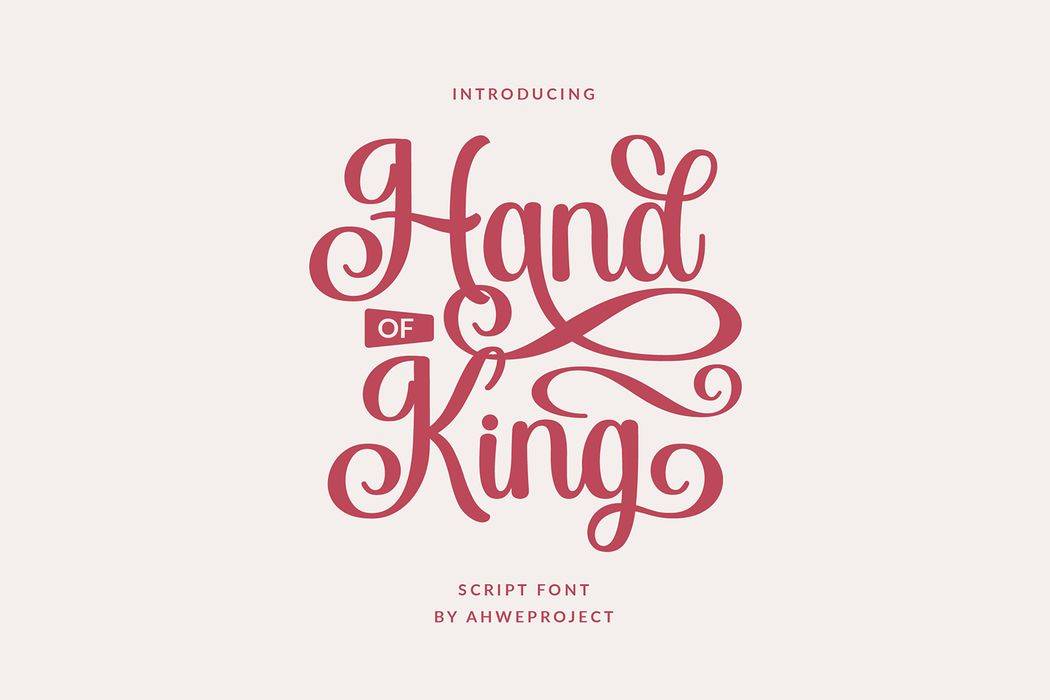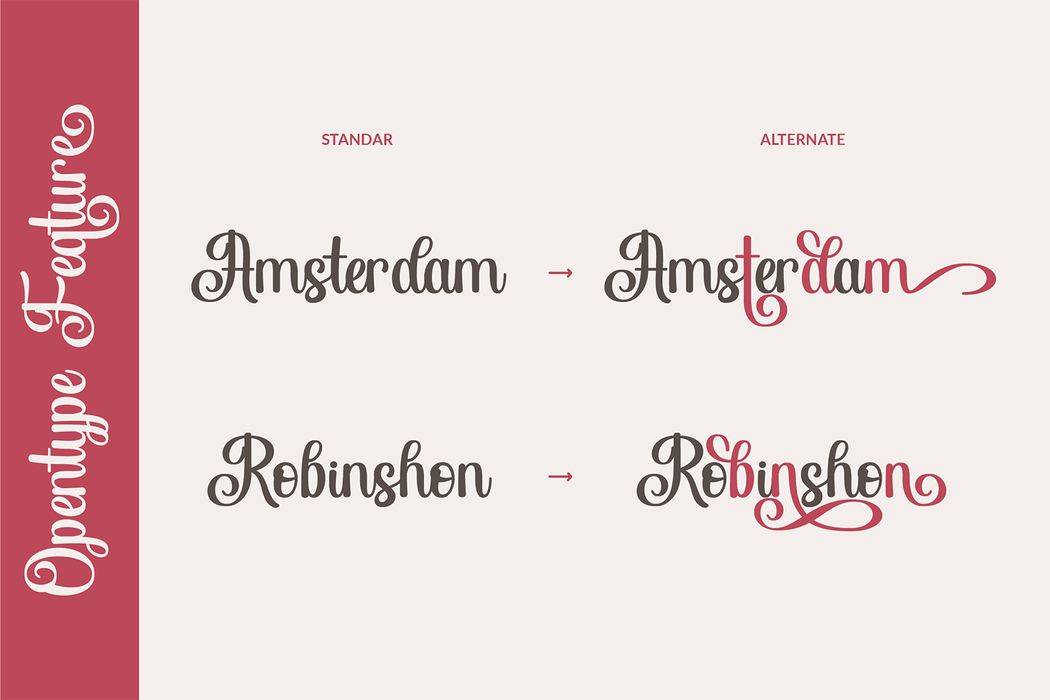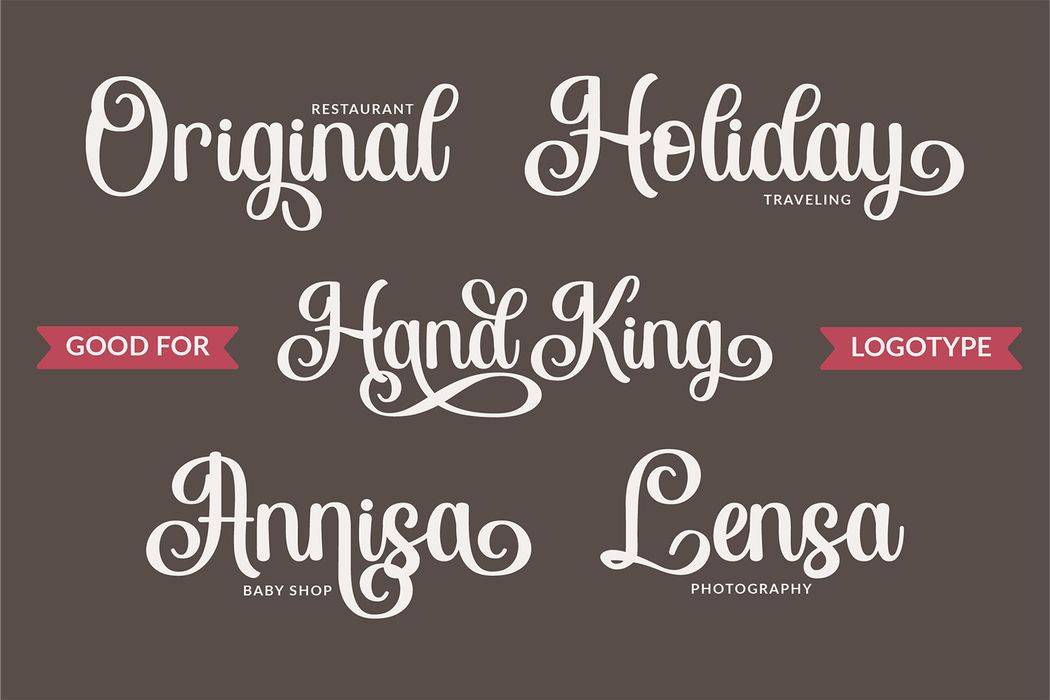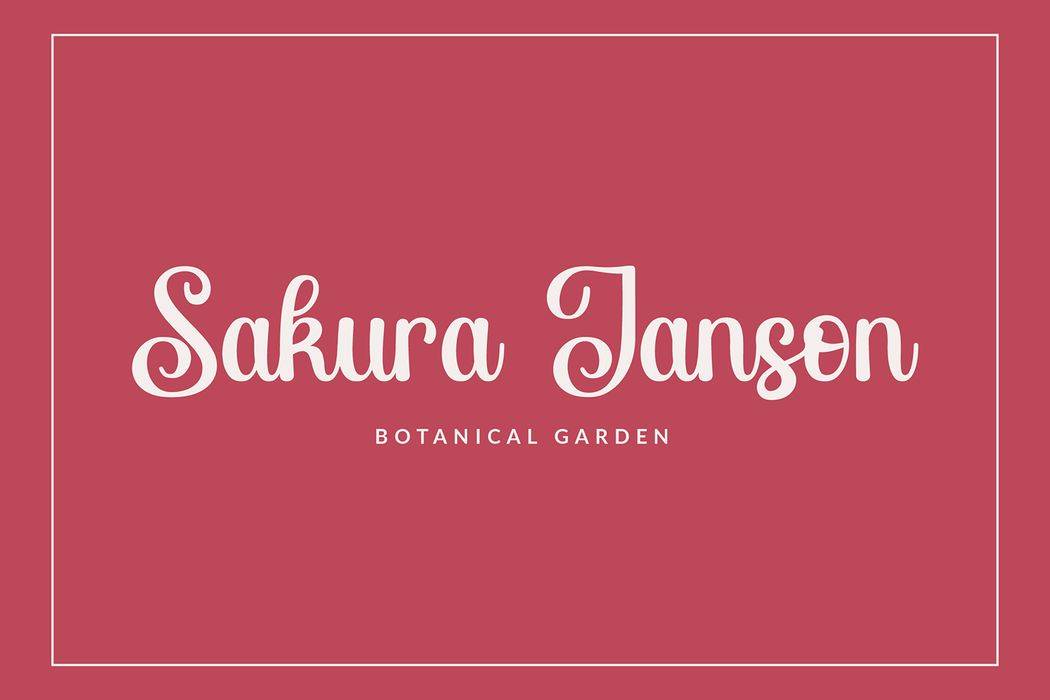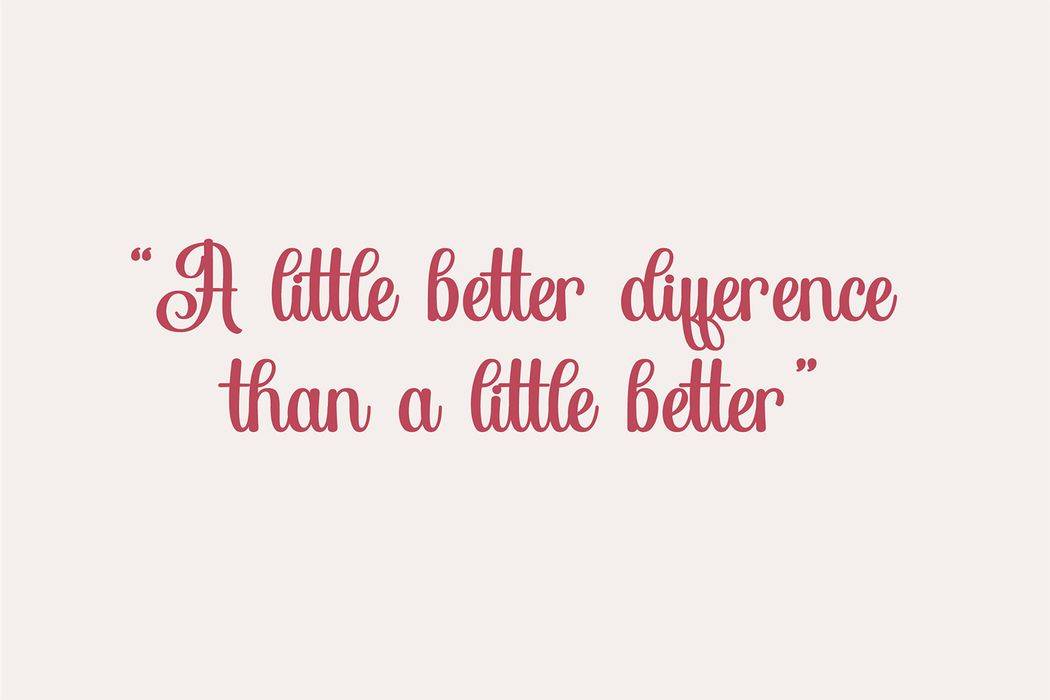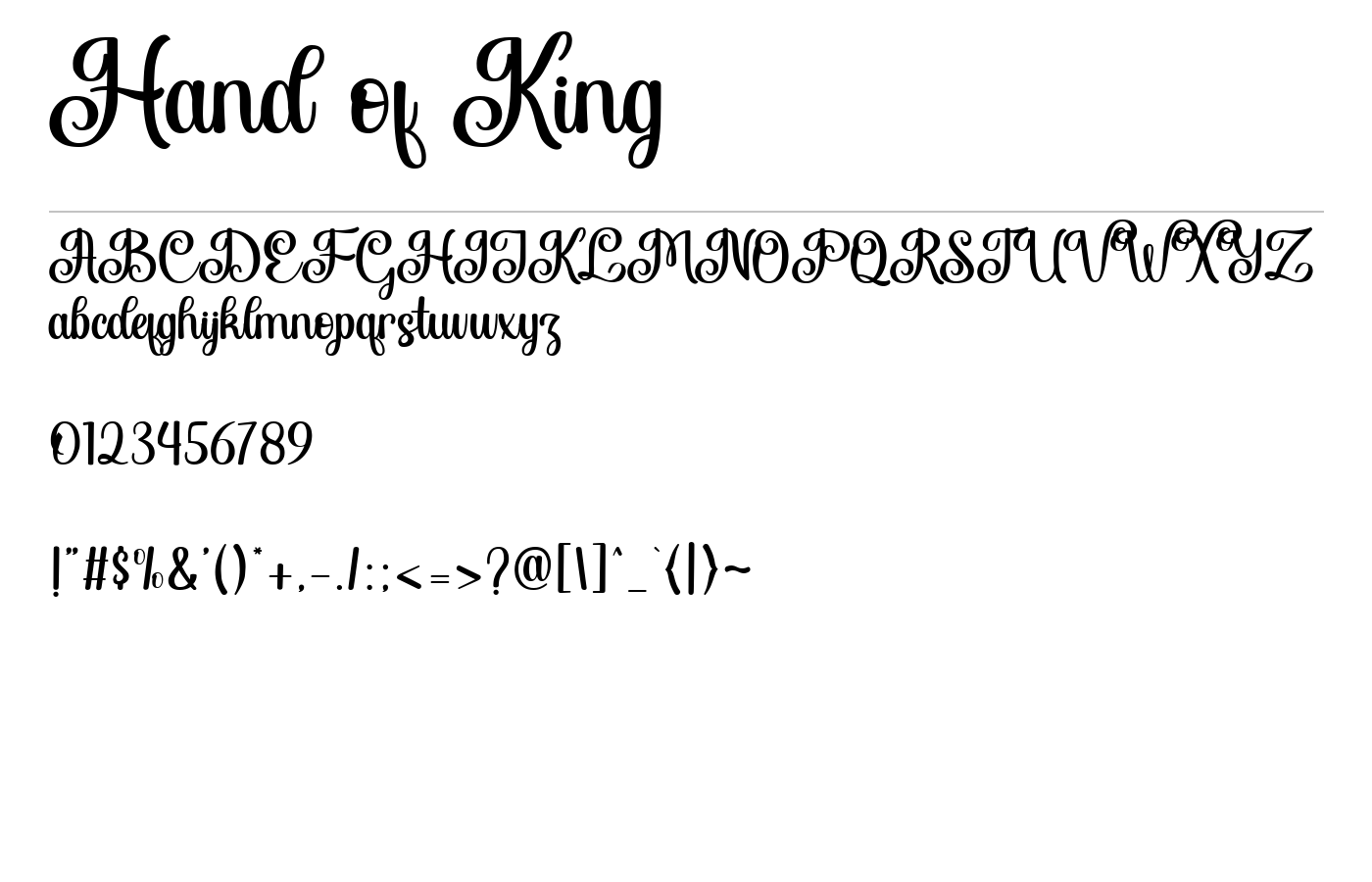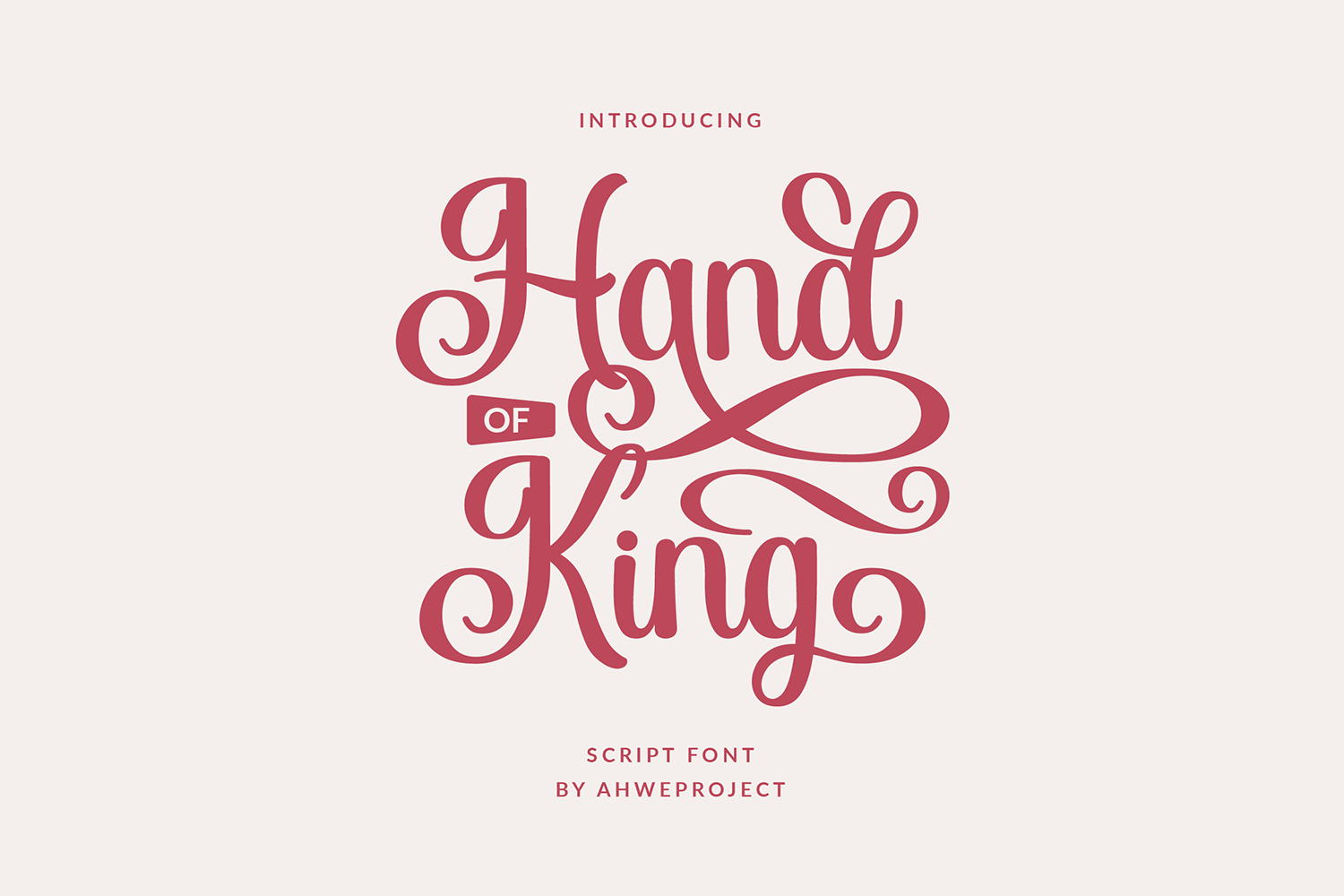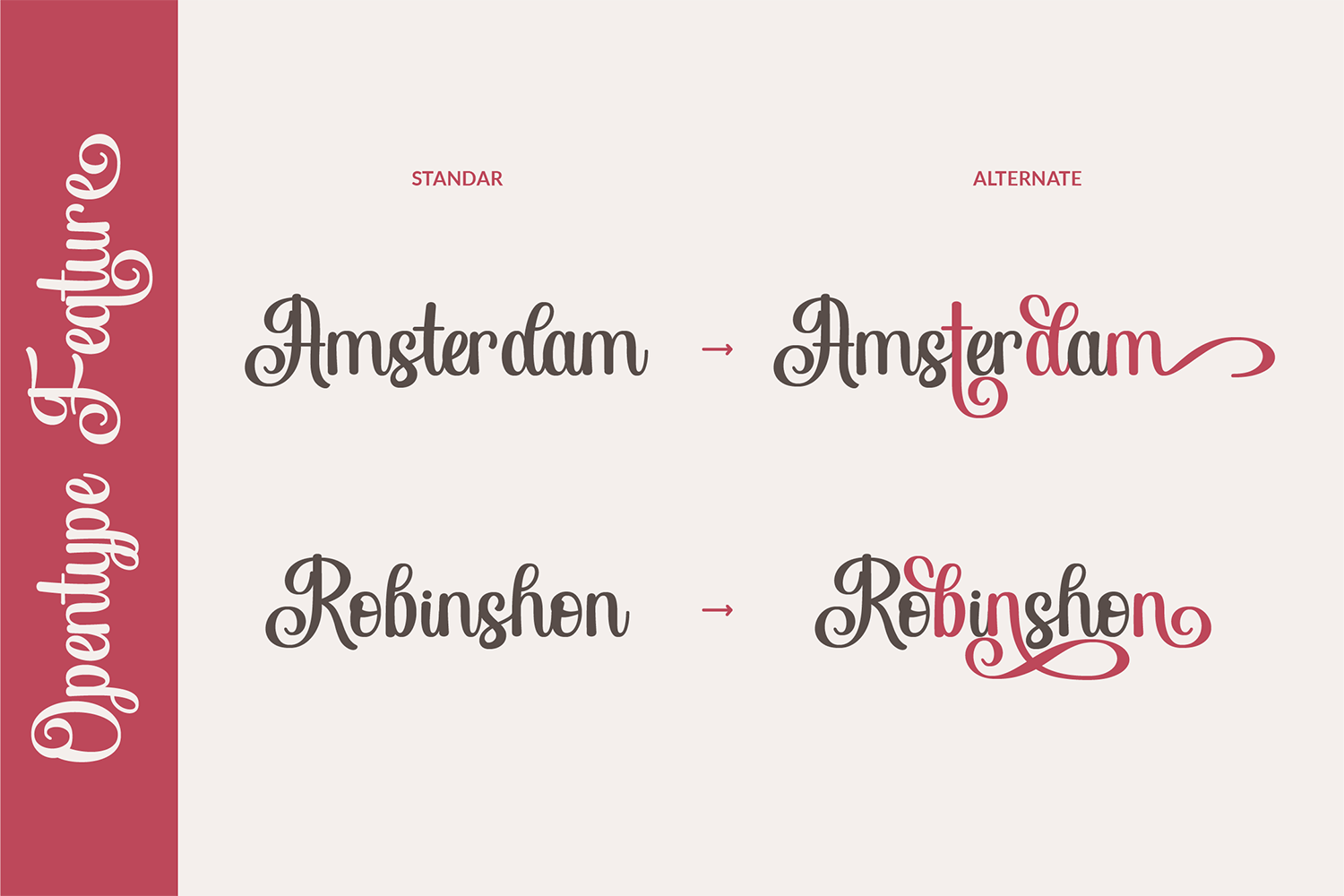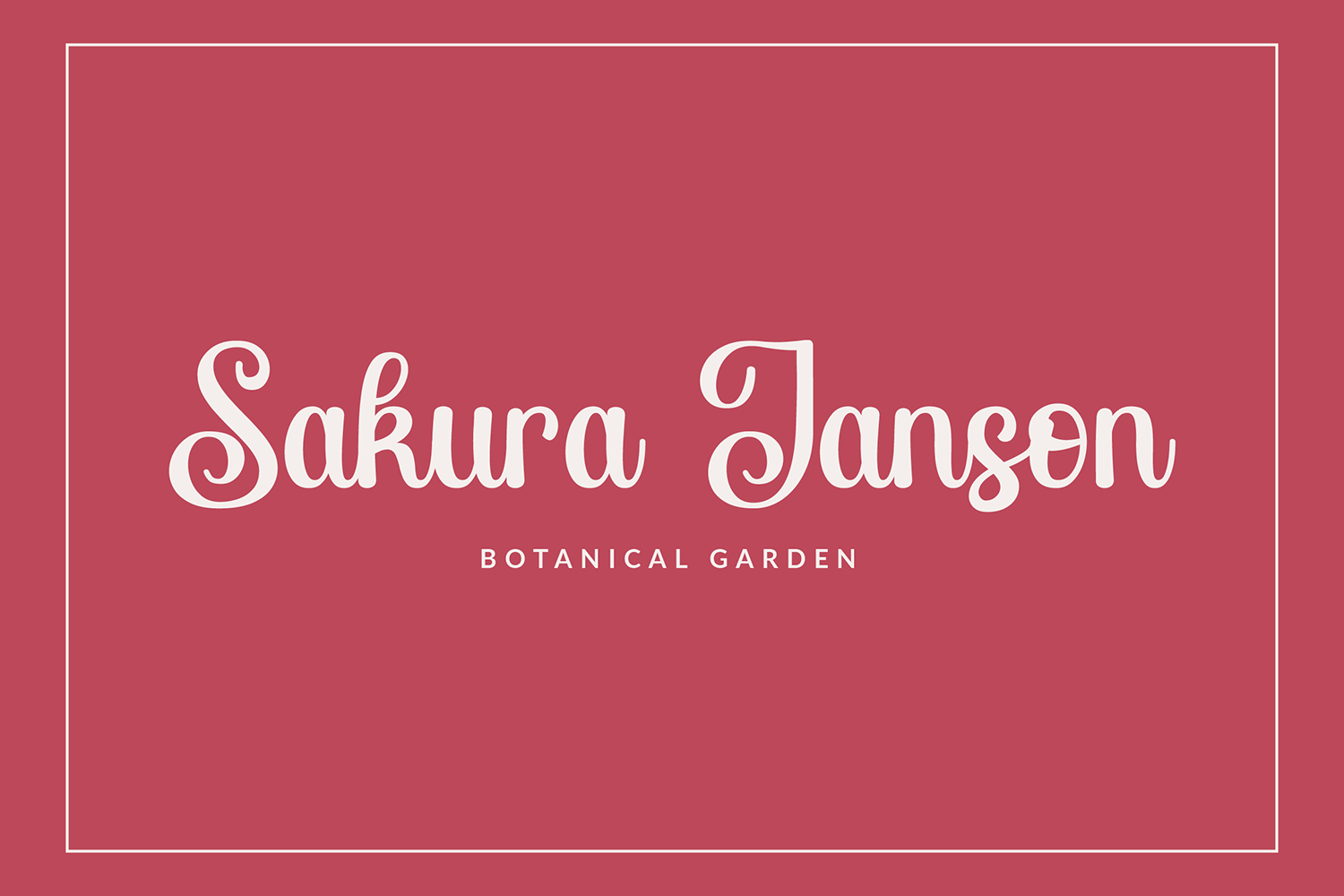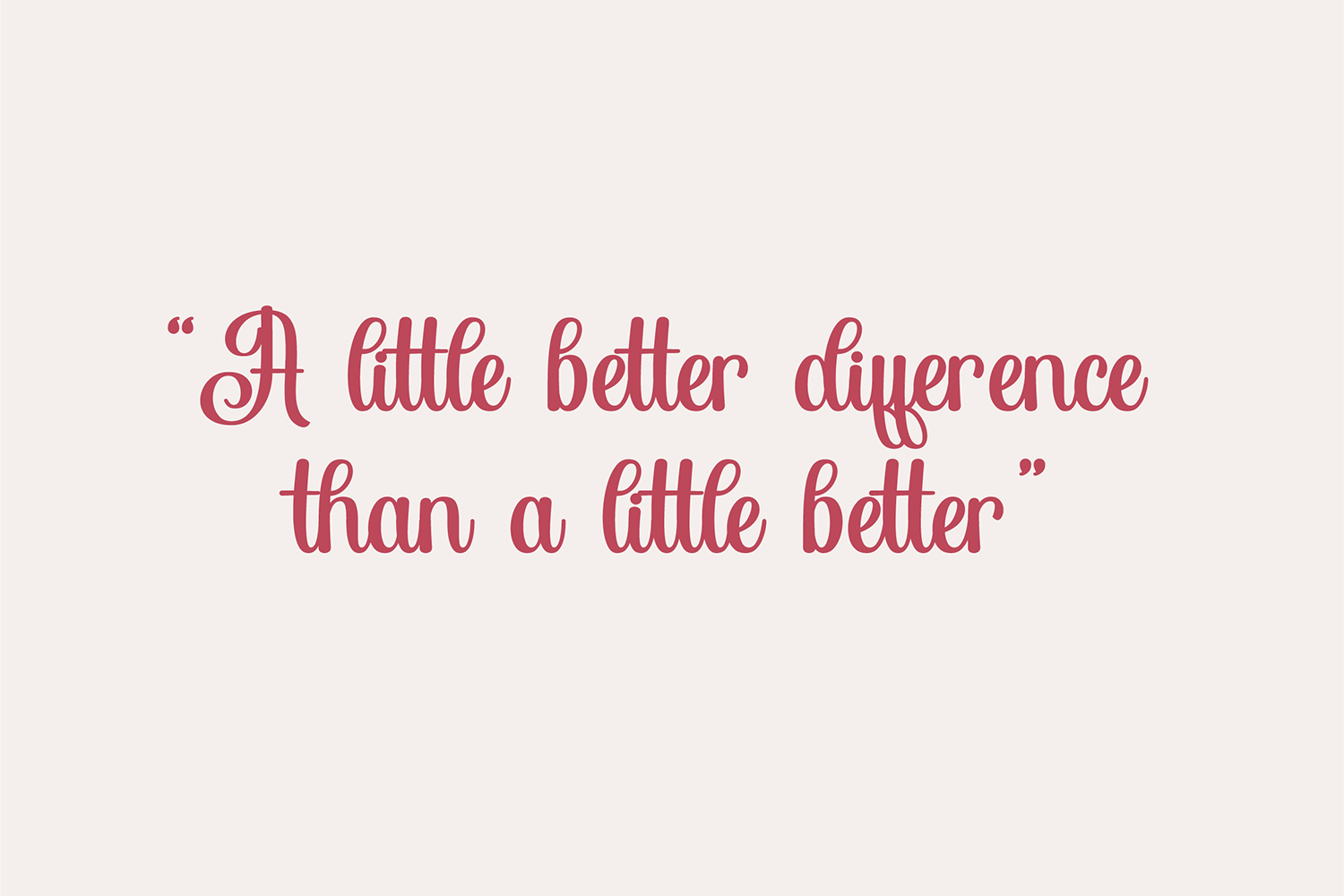
Hand of King is a decorative script font with a playful and elegant flair, featuring tightly spaced, bold strokes and intricate curls that give it a distinctive, handcrafted feel. Its tall x-height and delicate looping elements make it ideal for eye-catching headlines, logos, and branding that seeks a touch of vintage charm and personality without losing readability. This font works best in creative projects, invitations, and packaging where a classy yet lively style is desired.
Hand of King
About Hand of King
| Font family | Hand of King |
| Release date | 2020-10-09 |
| Designer | ahweproject |